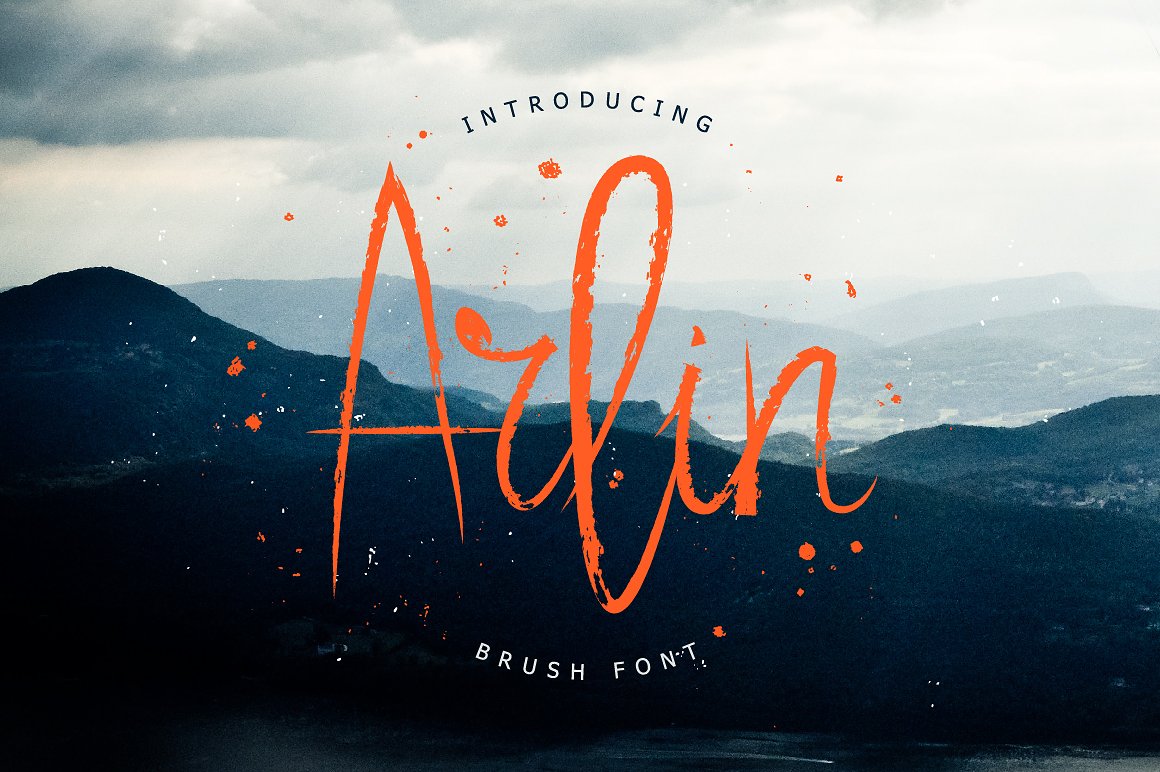
Arlin Brush Font
Arlin is a hand brushed font. Comes with uppercase and lowercase characters, large set of punctuation glyphs, numerals, and supports international language.
| Classification: | Brush Fonts, Script Fonts |